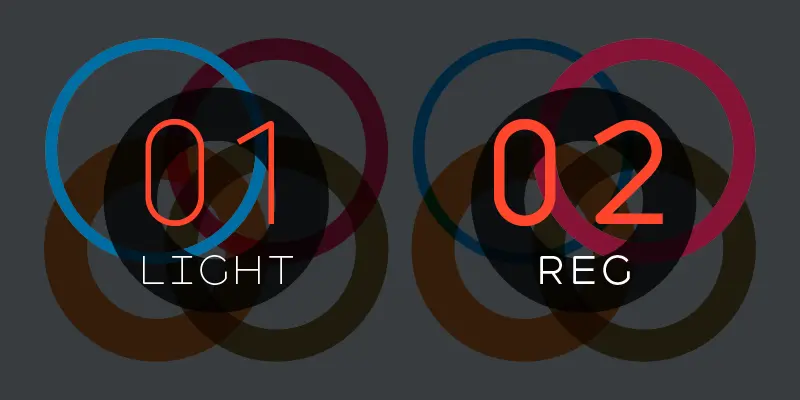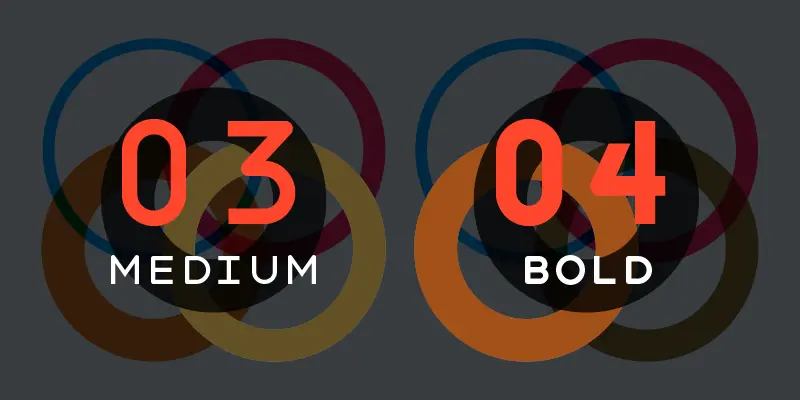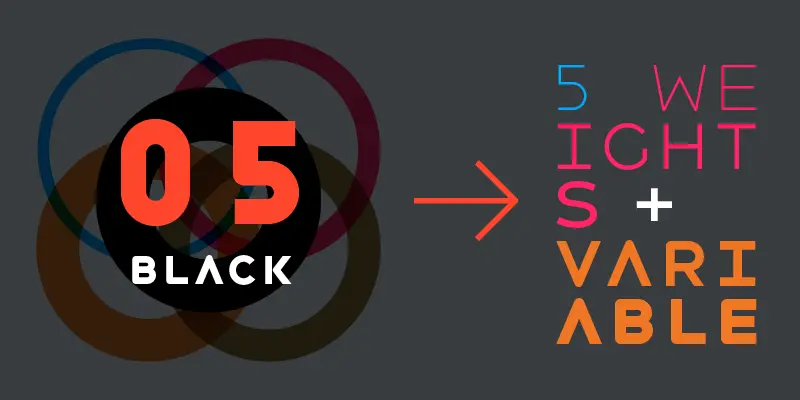
Havelock Titling
From XO Type Co
Havelock Titling’s essential idea is “pure geometry with austere spacing.” Square, triangle, circle: each letter is reduced to only its required forms. Joints are rounded to give an aerodynamic sense of motion and to thwart any sense of stiffness that can happen when letters are reduced to basic geometric shapes. Available in 5 weights and as a variable font. Designed by Patric King for XO Type Co.
Designed by Patric King